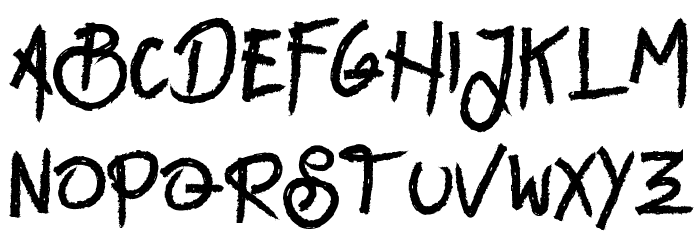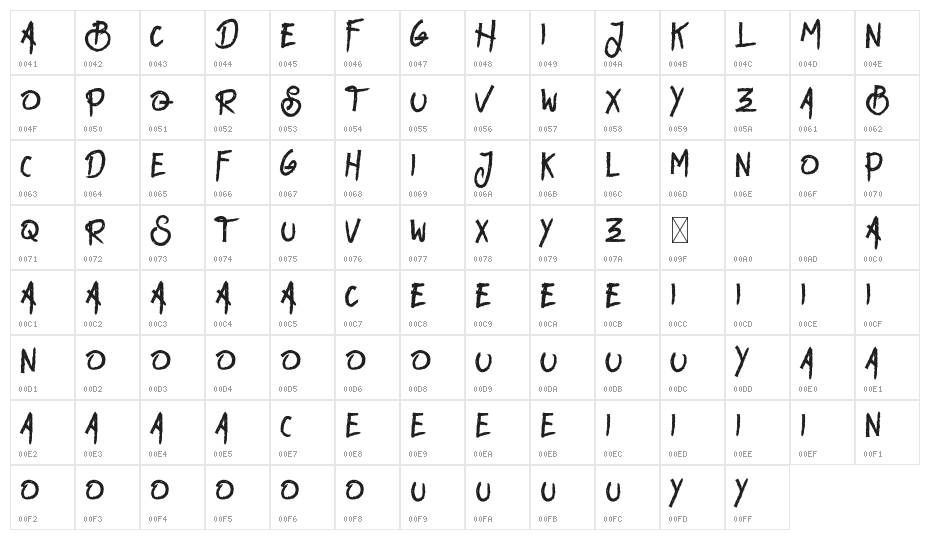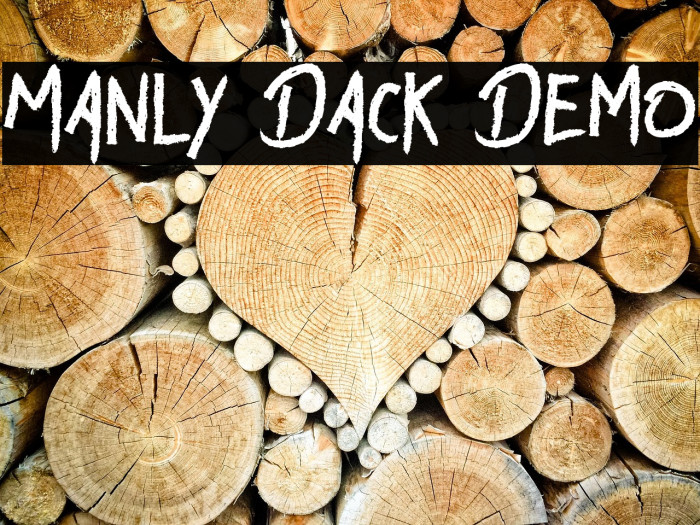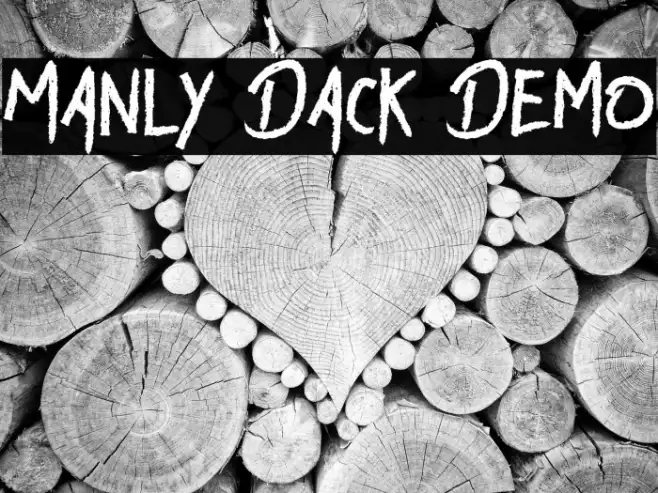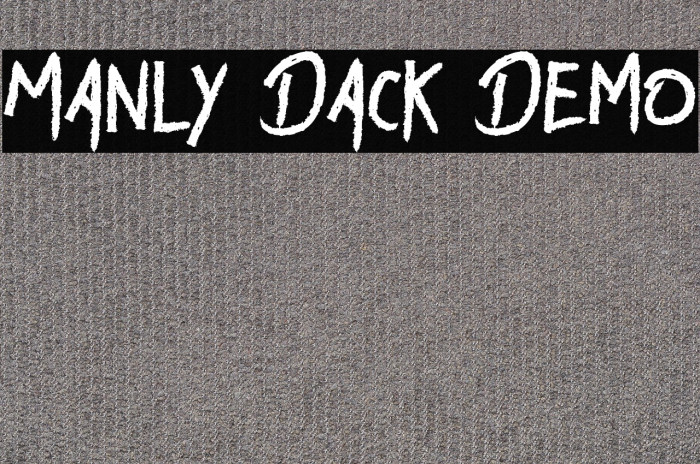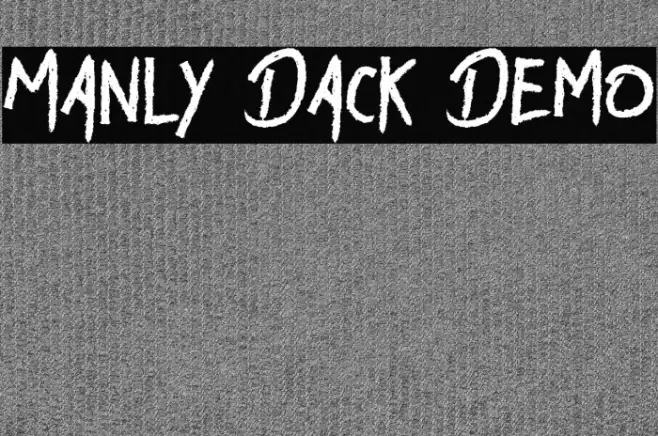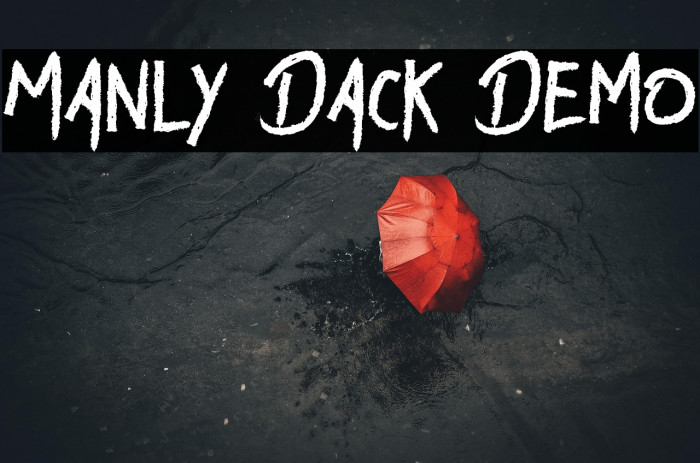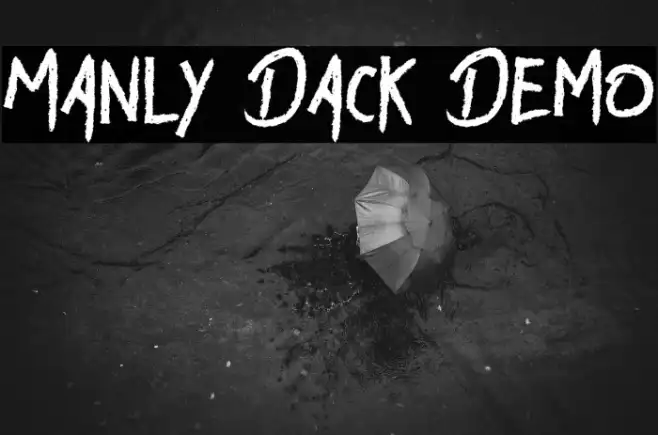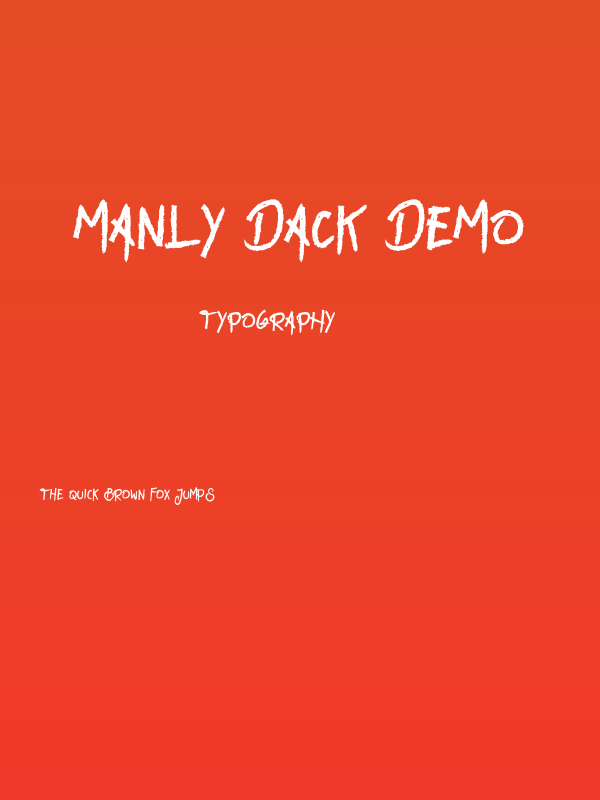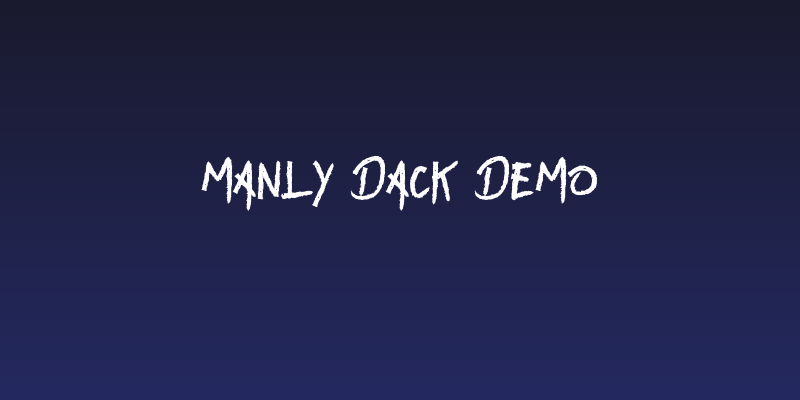
Manly Dack Demo Font
Manly Dack Demo Description
This font features a bold, expressive style with a hand-drawn appearance. The characters are irregular and dynamic, giving a sense of movement and energy. The strokes are thick and uneven, adding a raw, artistic feel. The uppercase letters are particularly striking, with unique flourishes and variations that make each letter stand out. The lowercase letters maintain the same energetic style, with some characters featuring loops and curls. The numbers and special characters are consistent with the overall aesthetic, offering a cohesive look across all glyphs. This font is ideal for projects that require a bold statement or a creative, artistic touch.
| Proposed Projects | Ideal for posters, album covers, branding, and creative projects that need a bold, artistic touch. |